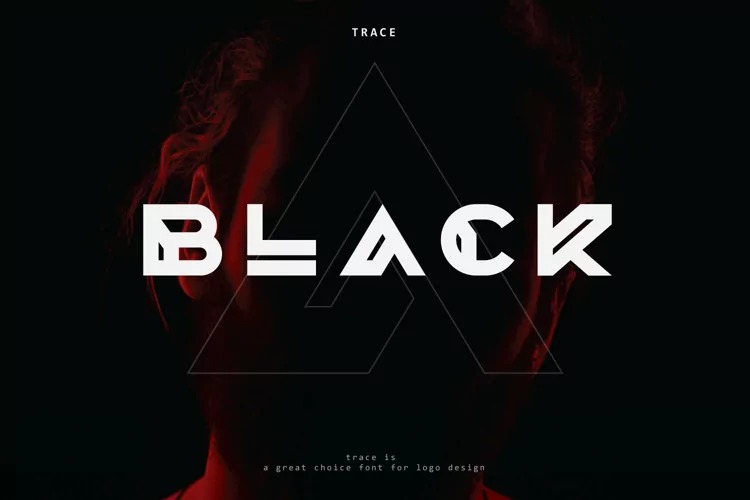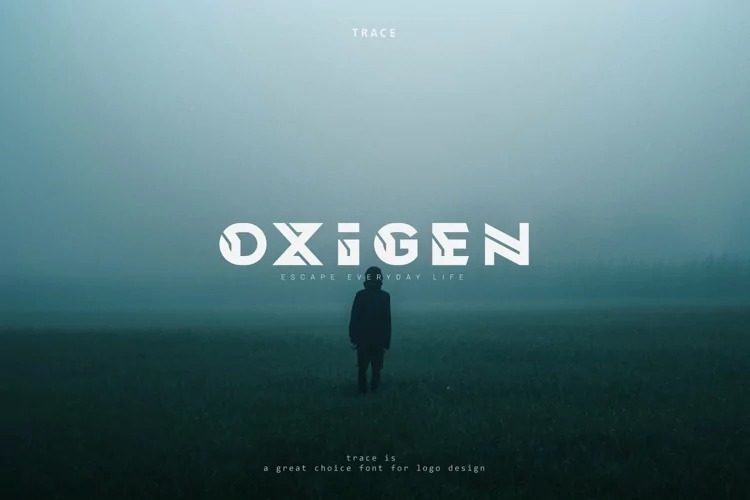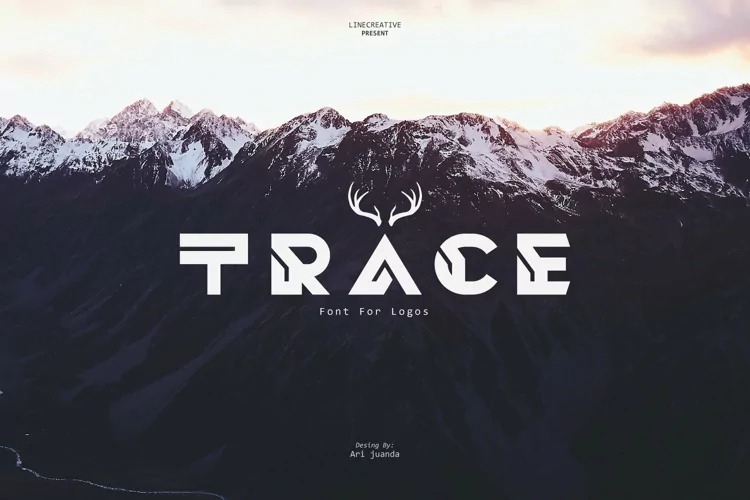
Trace Display Font
This is a minimalist techno logo font manufactured by Linecreative. Based on sans serif design, developed to techno style with the minimalist stencil concept and sharp edges. This font is suitable for making word marks, titles, taglines. This font has geometric shapes that are perfect for a futuristic theme, techno, digital, sci-fi, and hipster style.